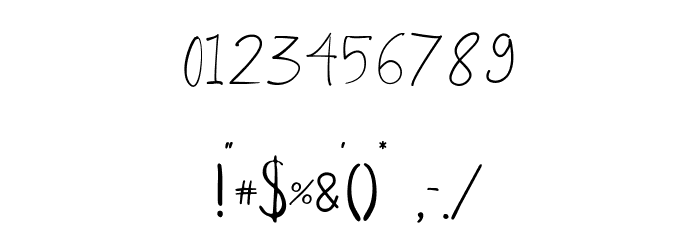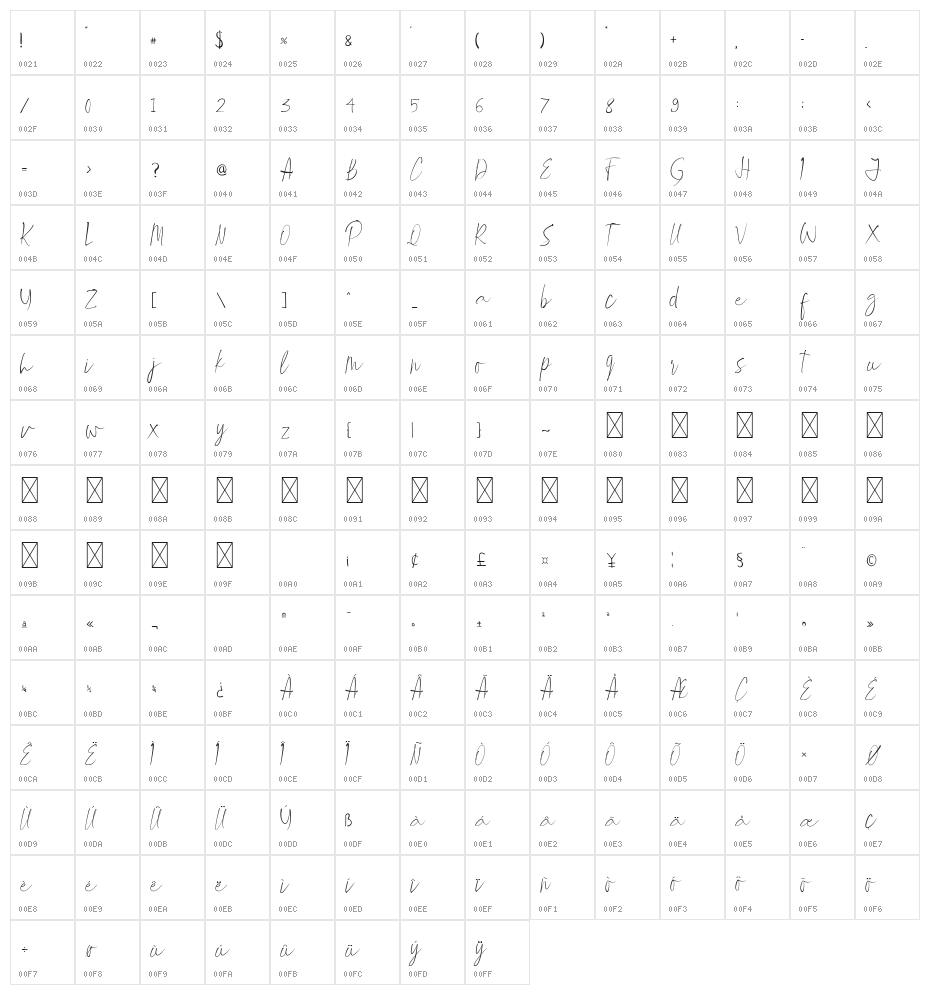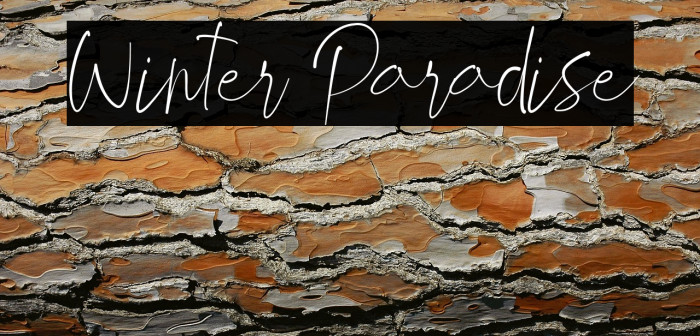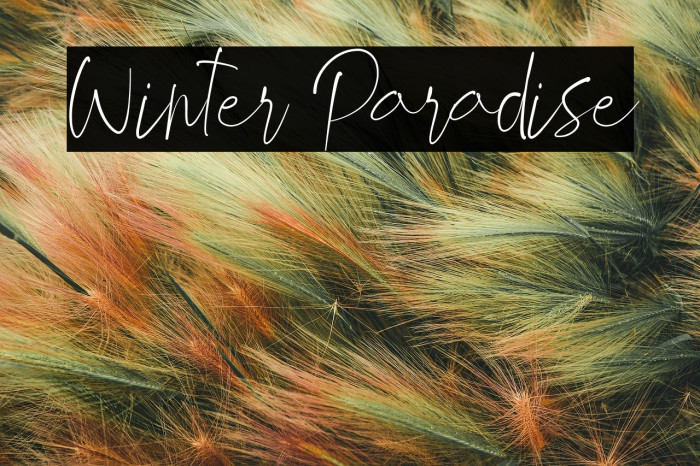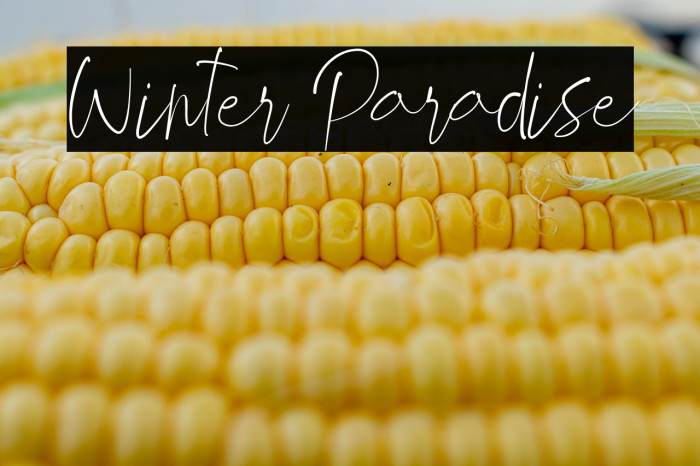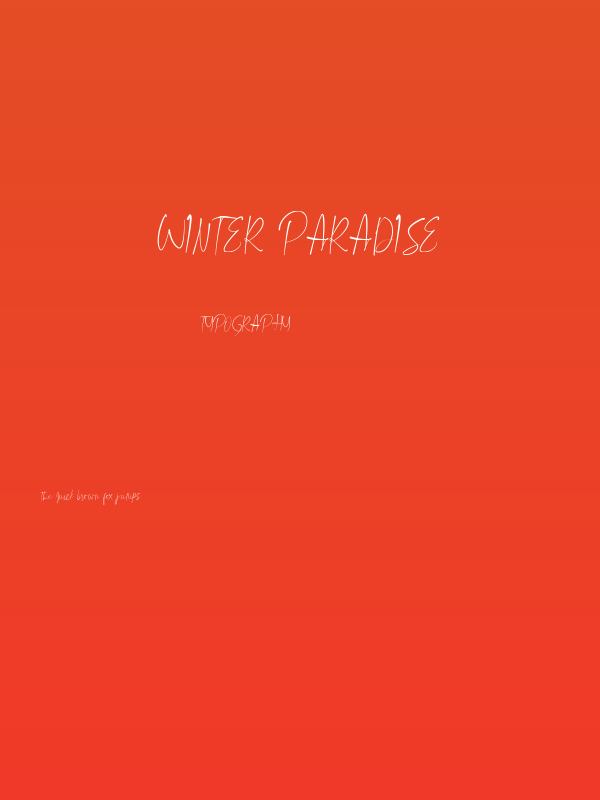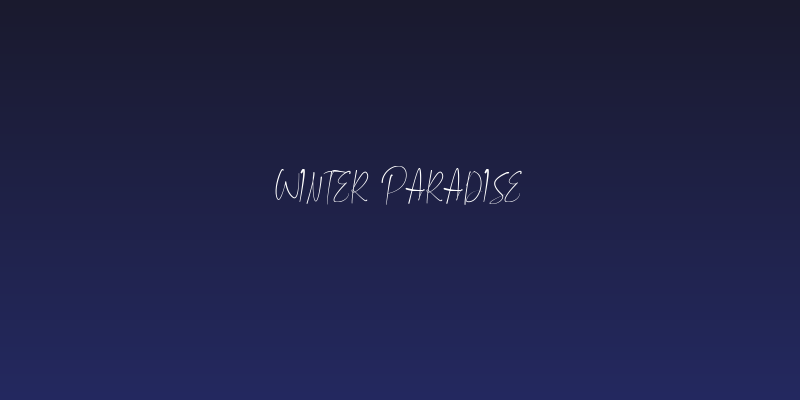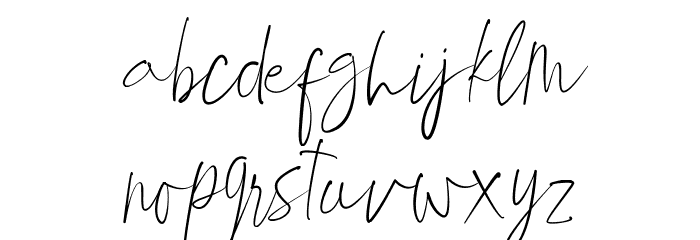
Winter Paradise Font
Winter Paradise Description
This font features a whimsical and flowing handwritten style, characterized by its elegant and fluid strokes. The uppercase letters are tall and slender, with a slight slant that adds a dynamic feel. The lowercase letters maintain a consistent flow, with loops and curves that enhance its handwritten charm. Numbers are clear and maintain the same playful style, making them easily readable. Special characters are designed to match the overall aesthetic, ensuring a cohesive look across all text elements. This font exudes a casual yet sophisticated vibe, perfect for adding a personal touch to any project.